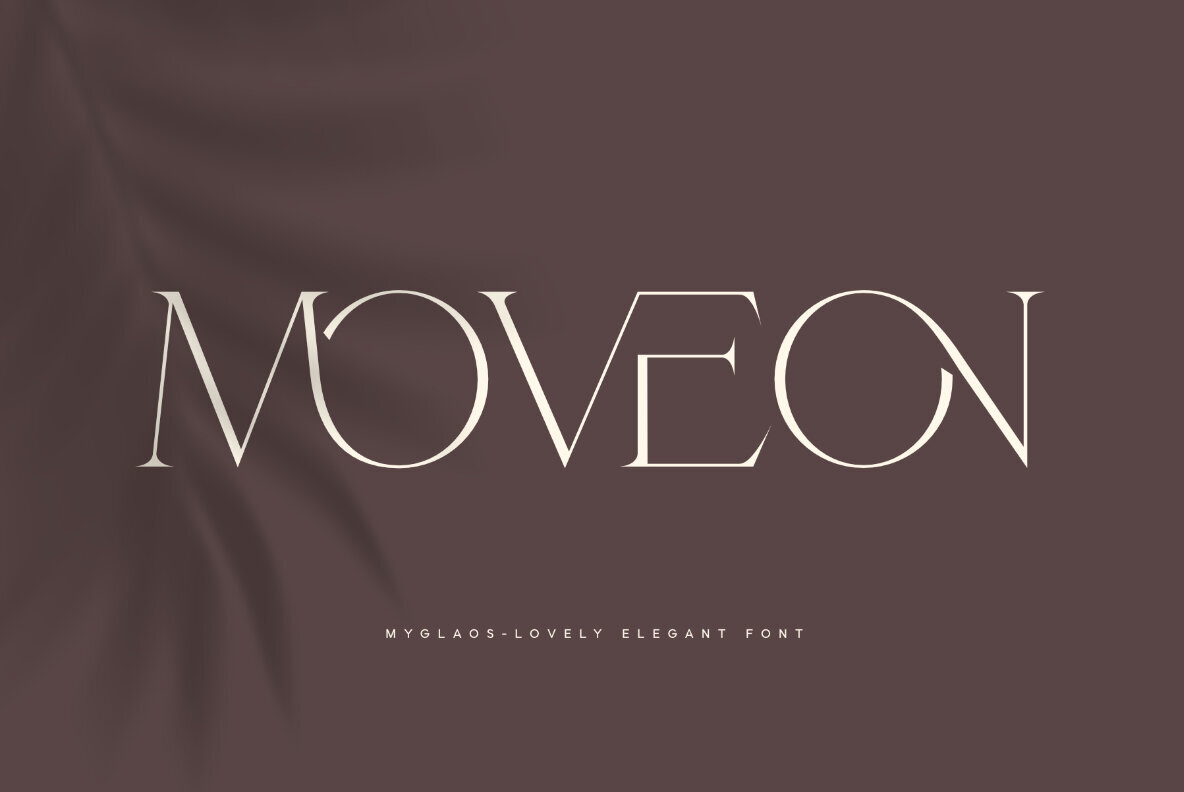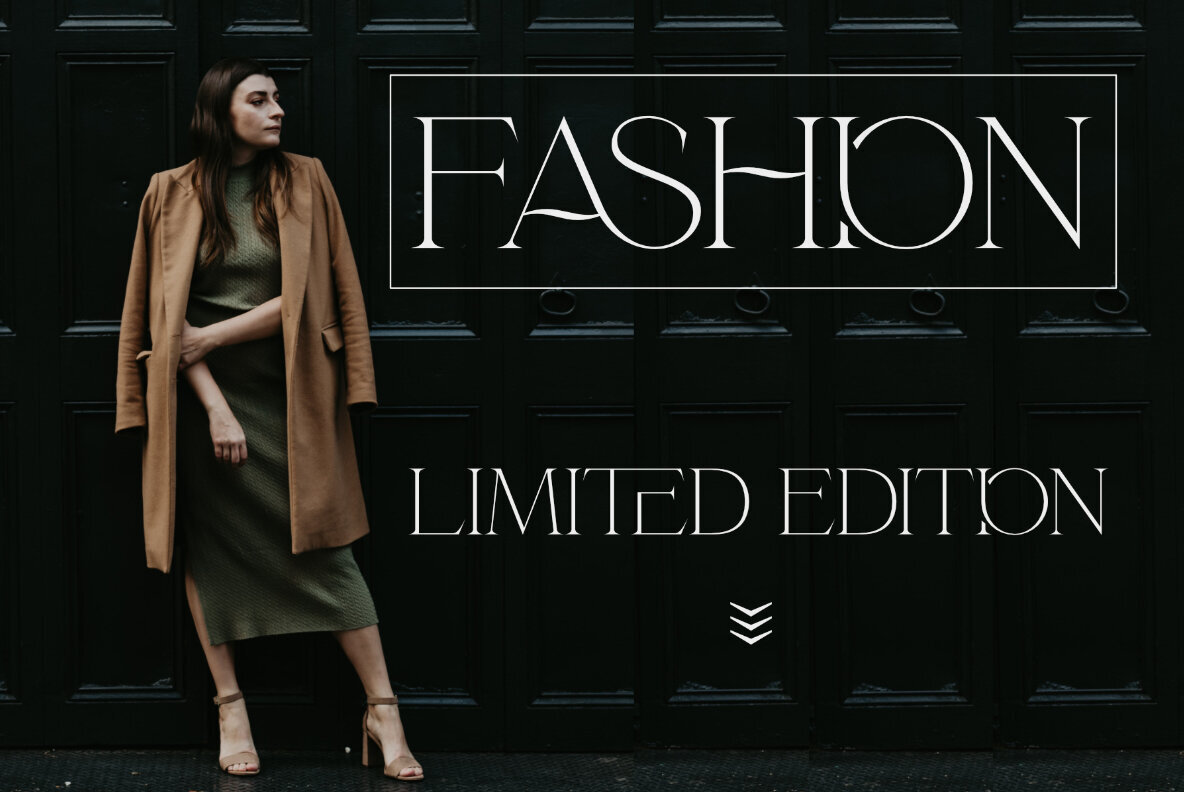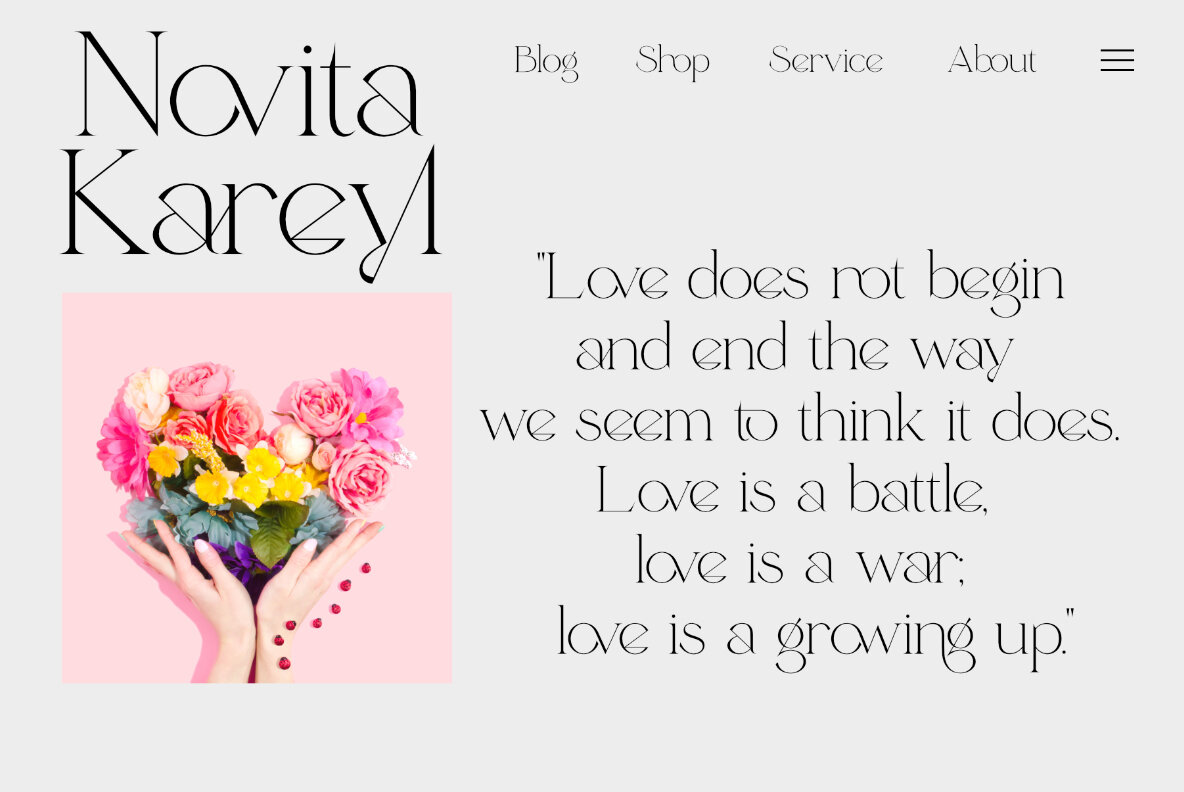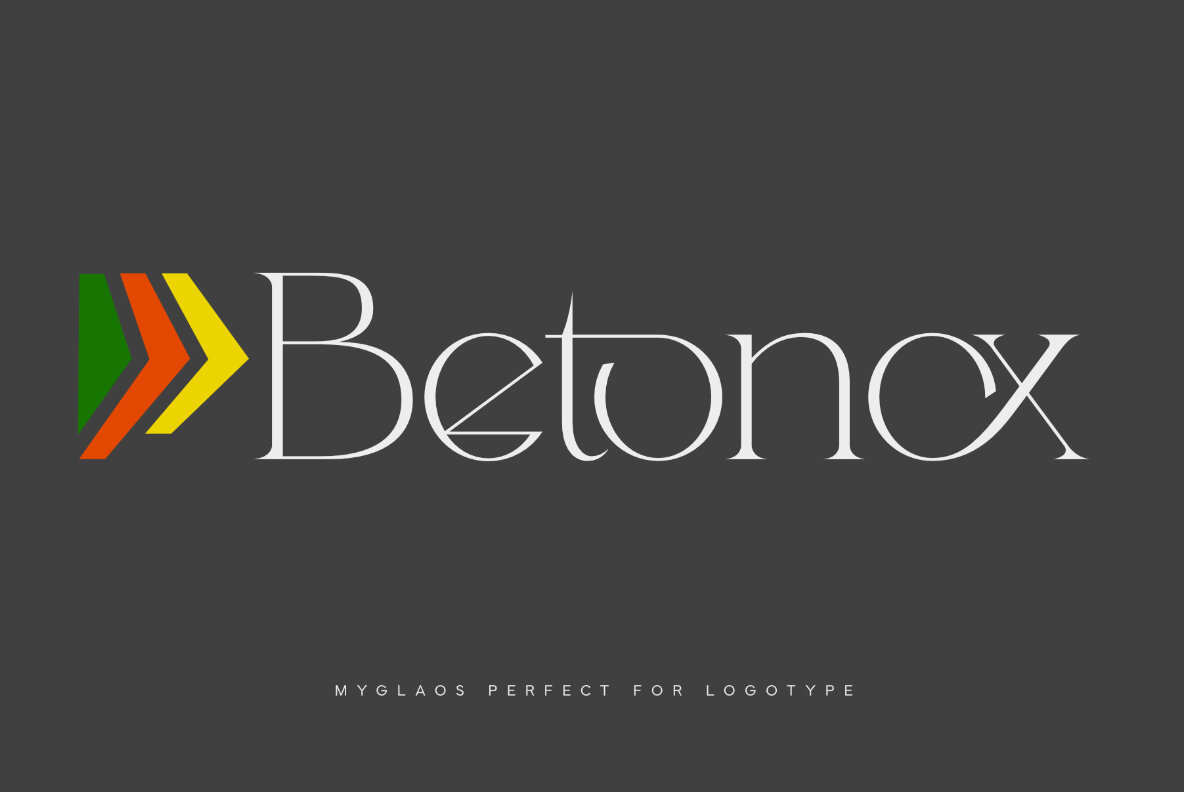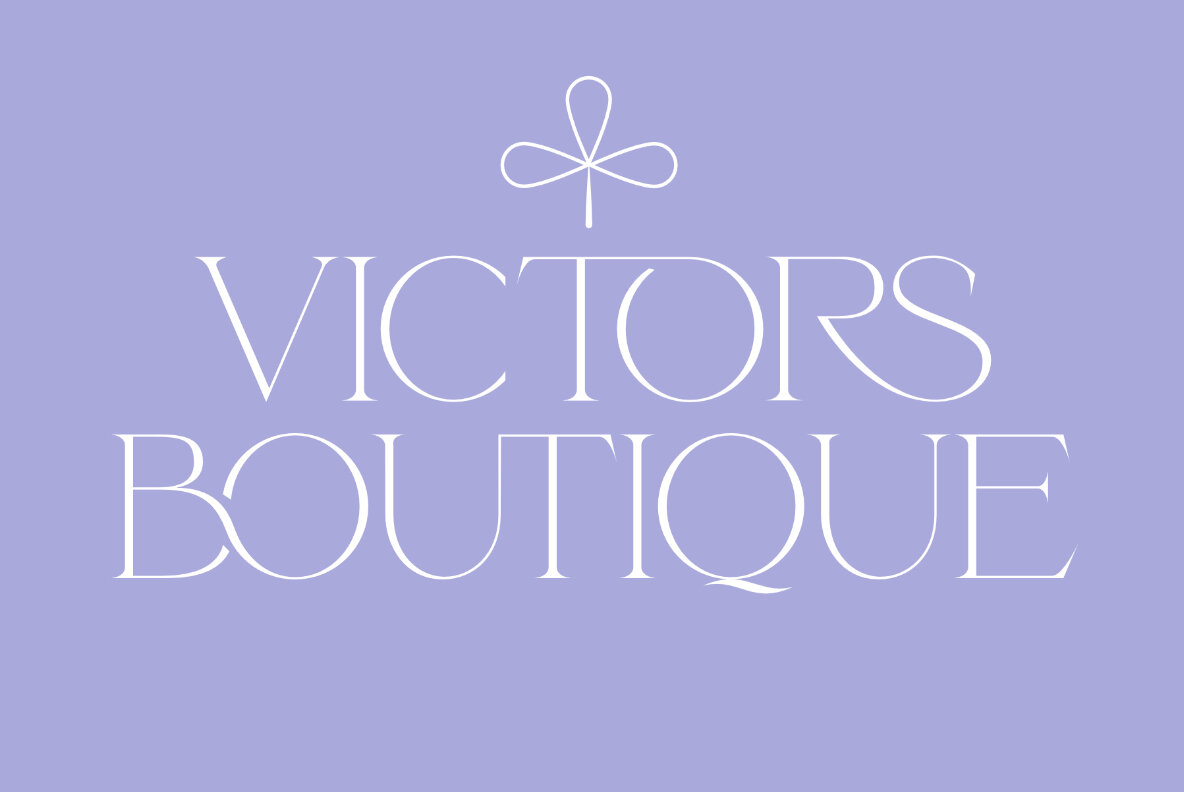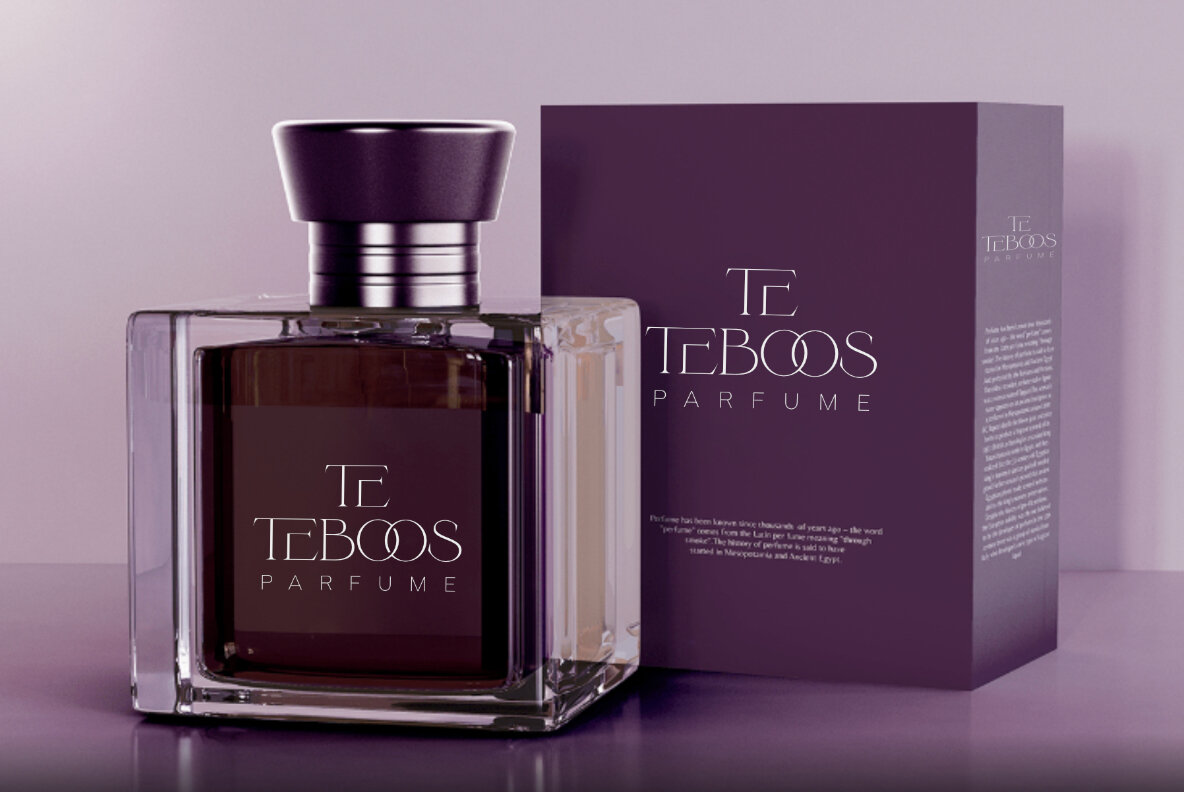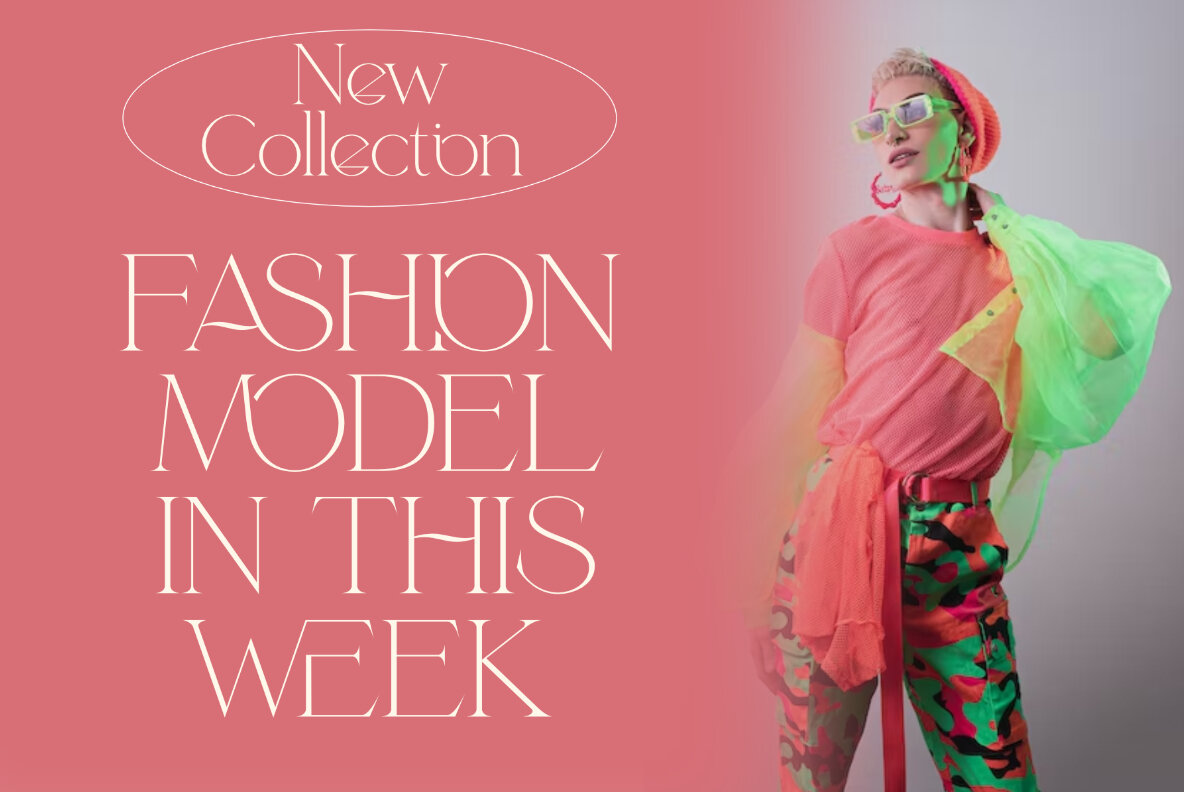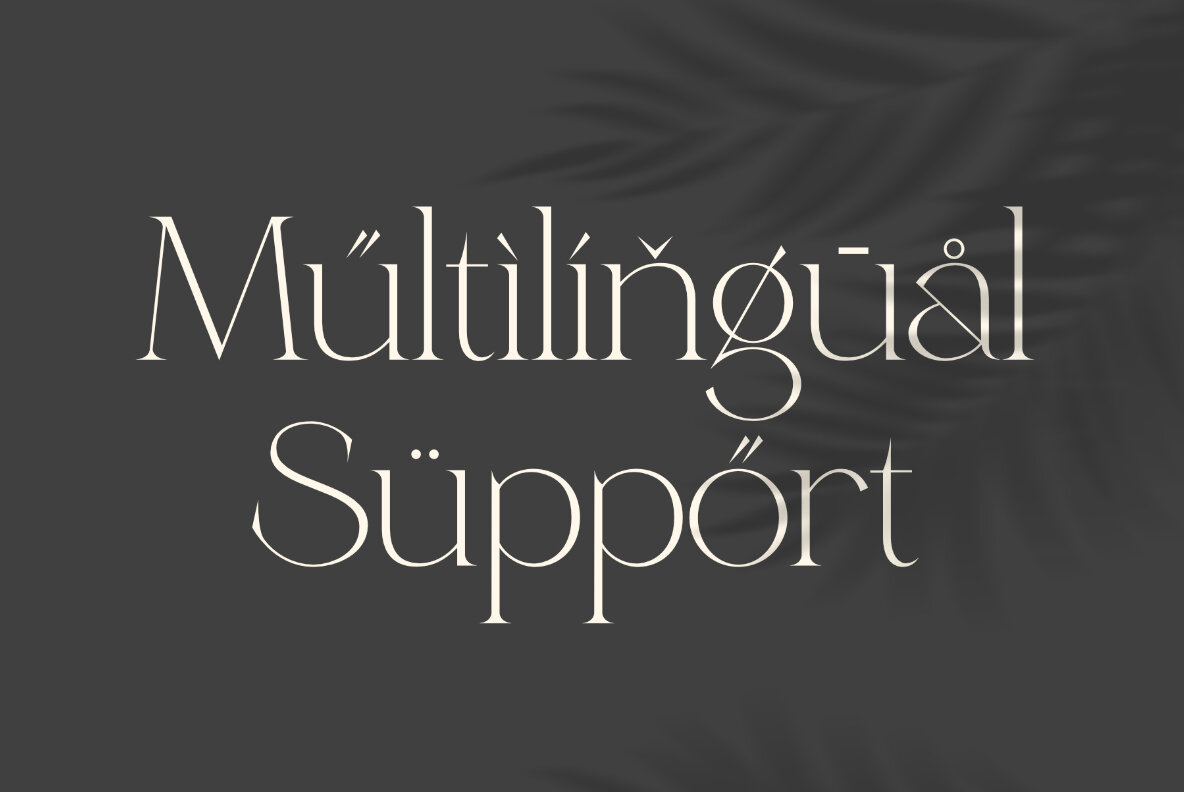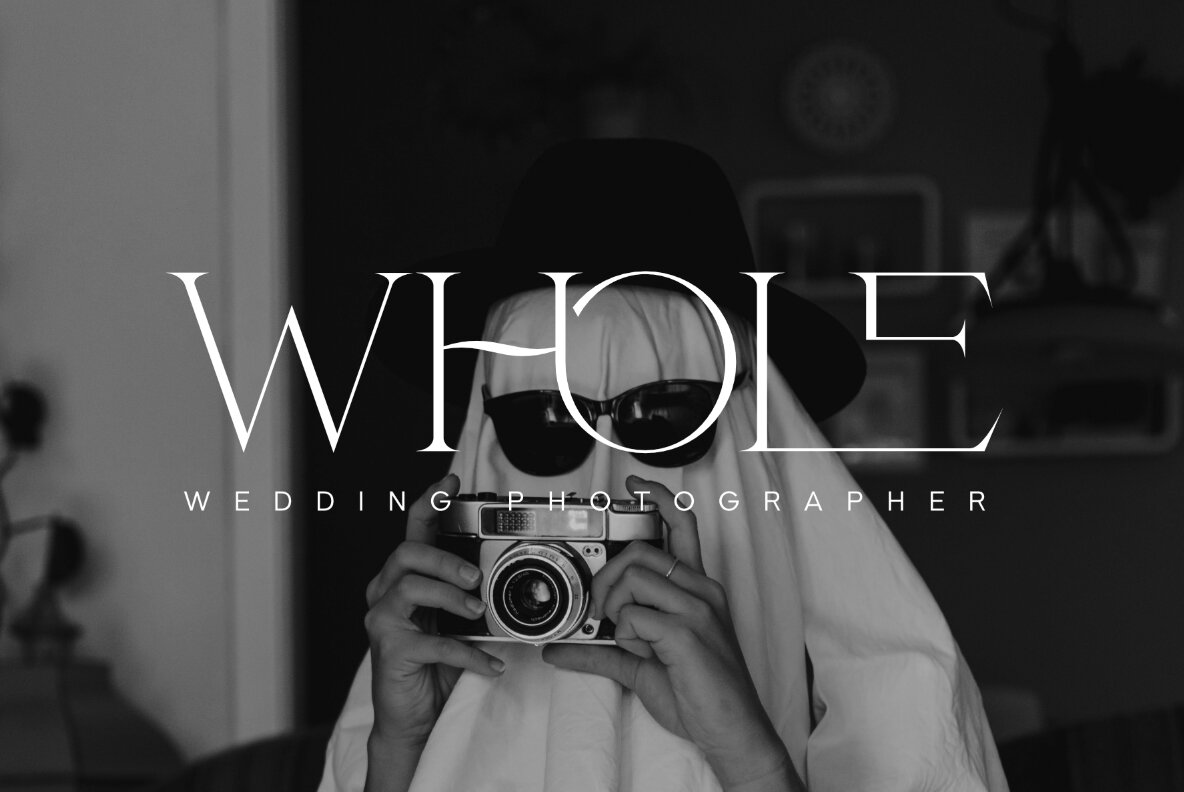
Myglaos Font
Myglaos Regular
Myglaos offers an exquisite choice for designers seeking elegance in branding and logo design. This typeface is designed to infuse creativity into various projects, from packaging designs to content creation, and more. Its impressive array of ligatures further elevates its versatility, making it ideal for any stylish or professional design endeavor. Consider adding Myglaos to your font repertoire for business projects that demand sophistication and style.Myglaos: Elegant Font for Branding and Logos